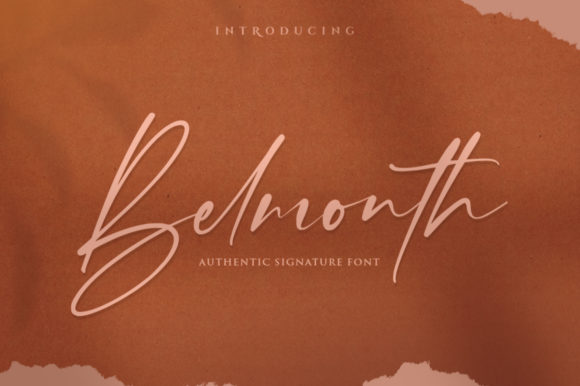
Belmonth Font: Elevate Your Designs with a Cool and Stylish Script Font
Are you looking for a font that can add a touch of sophistication and elegance to your designs? Look no further than the Belmonth font. This cool and stylish script font is perfect for designers who want to create editorial-style designs that stand out from the crowd. In this article, we’ll take a closer look at the Belmonth font, its features, and how you can use it to elevate your designs.
What is Belmonth Font?
Belmonth is a modern script font that is designed to add an editorial look to any design idea. It is a stylish and elegant font that is perfect for creating sophisticated designs, such as fashion magazines, luxury branding, and high-end advertising. The font features beautiful swashes, elegant lettering, and a unique style that sets it apart from other script fonts.
Benefits of Using Belmonth Font
There are several benefits to using the Belmonth font in your designs. Here are a few:
- Elegant and Sophisticated: Belmonth font is designed to add an elegant and sophisticated touch to your designs. Its stylish lettering and swashes make it perfect for creating high-end designs.
- Versatile: Belmonth font is a versatile font that can be used for a variety of design projects, from fashion magazines to luxury branding.
- Easy to Read: Despite its elegant and cursive style, Belmonth font is easy to read, making it perfect for body text and headlines.
- Unique: Belmonth font has a unique style that sets it apart from other script fonts. Its swashes and lettering make it a standout font that will add a touch of personality to your designs.
How to Use Belmonth Font
Belmonth font is easy to use and can be incorporated into your designs in a variety of ways. Here are a few tips:
- Pair it with a Sans-Serif Font: Pair Belmonth font with a sans-serif font, such as Arial or Helvetica, to create a beautiful contrast between the elegant script font and the clean sans-serif font.
- Use it for Headlines: Belmonth font is perfect for headlines and titles. Use it to create eye-catching headlines that will grab the attention of your audience.
- Add Swashes: Belmonth font features beautiful swashes that can be used to add a touch of elegance to your designs. Use them to create a more dramatic effect.
Design Inspiration with Belmonth Font
Belmonth font can be used in a variety of design projects, from fashion magazines to luxury branding. Here are a few design inspiration ideas:
- Fashion Magazine: Use Belmonth font to create a fashion magazine that exudes elegance and sophistication.
- Luxury Branding: Use Belmonth font to create a luxury brand identity that reflects the high-end quality of your products.
- Wedding Invitations: Use Belmonth font to create beautiful wedding invitations that set the tone for a elegant and sophisticated wedding.
Belmonth Font Specifications
- Font Style: Script
- Characters: 260+ characters, including swashes and ligatures
In conclusion, Belmonth font is a cool and stylish script font that can add an editorial look to any design idea. Its elegant and sophisticated style makes it perfect for creating high-end designs, such as fashion magazines, luxury branding, and wedding invitations. With its versatility, ease of use, and unique style, Belmonth font is a great addition to any designer’s font library.